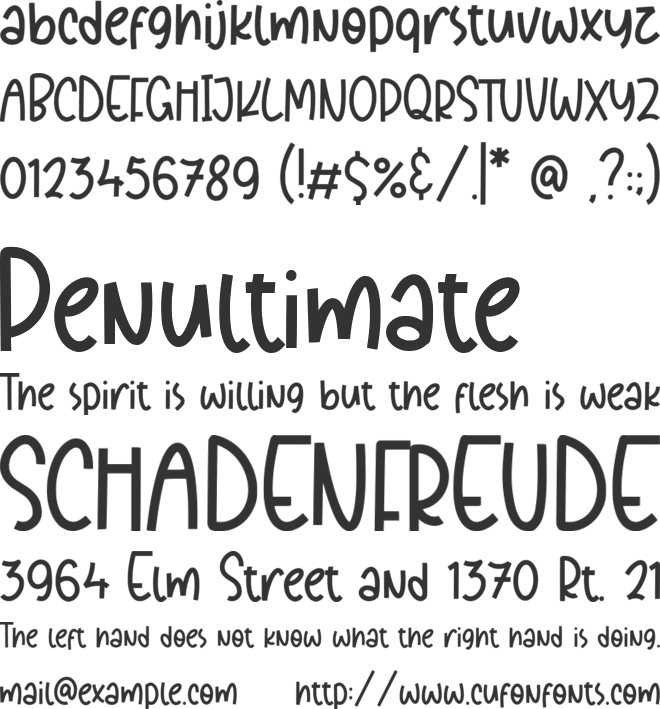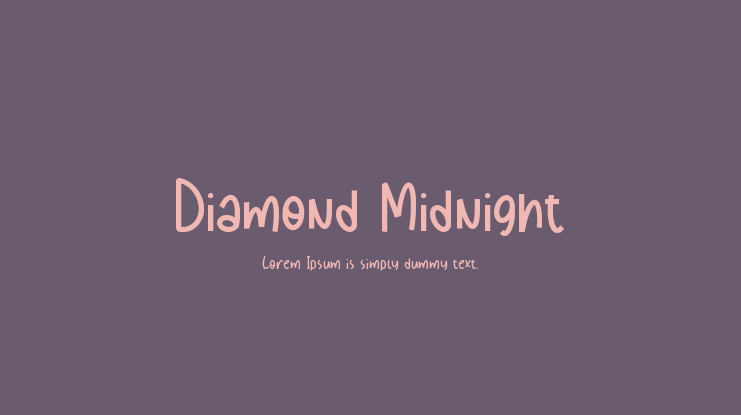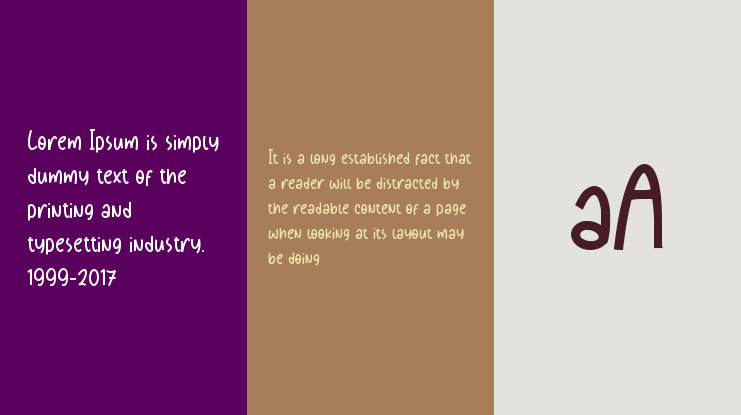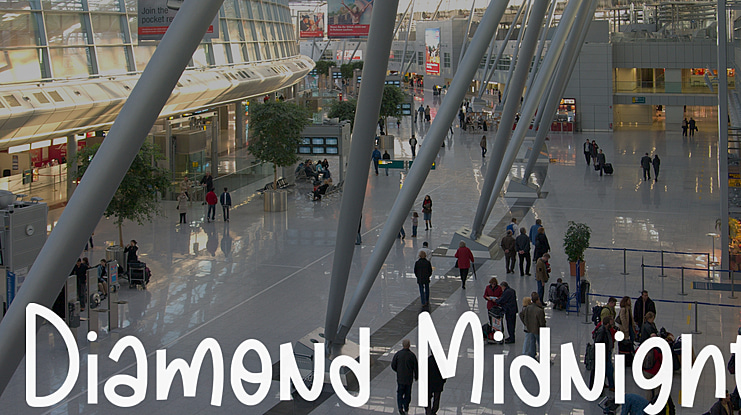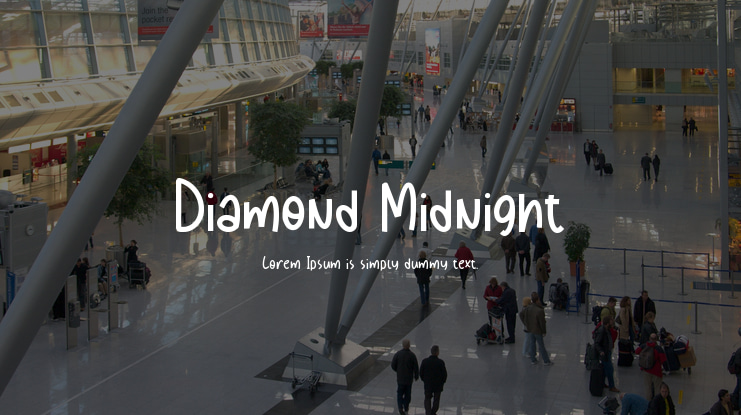
Diamond Midnight Font
Proudly Present, Diamond Midnight Font.
Diamond Midnight is a Modern Display Script Font.
Diamond Midnight is perfect for product packaging, branding project, megazine, social media, wedding, or just used to express words above the background.